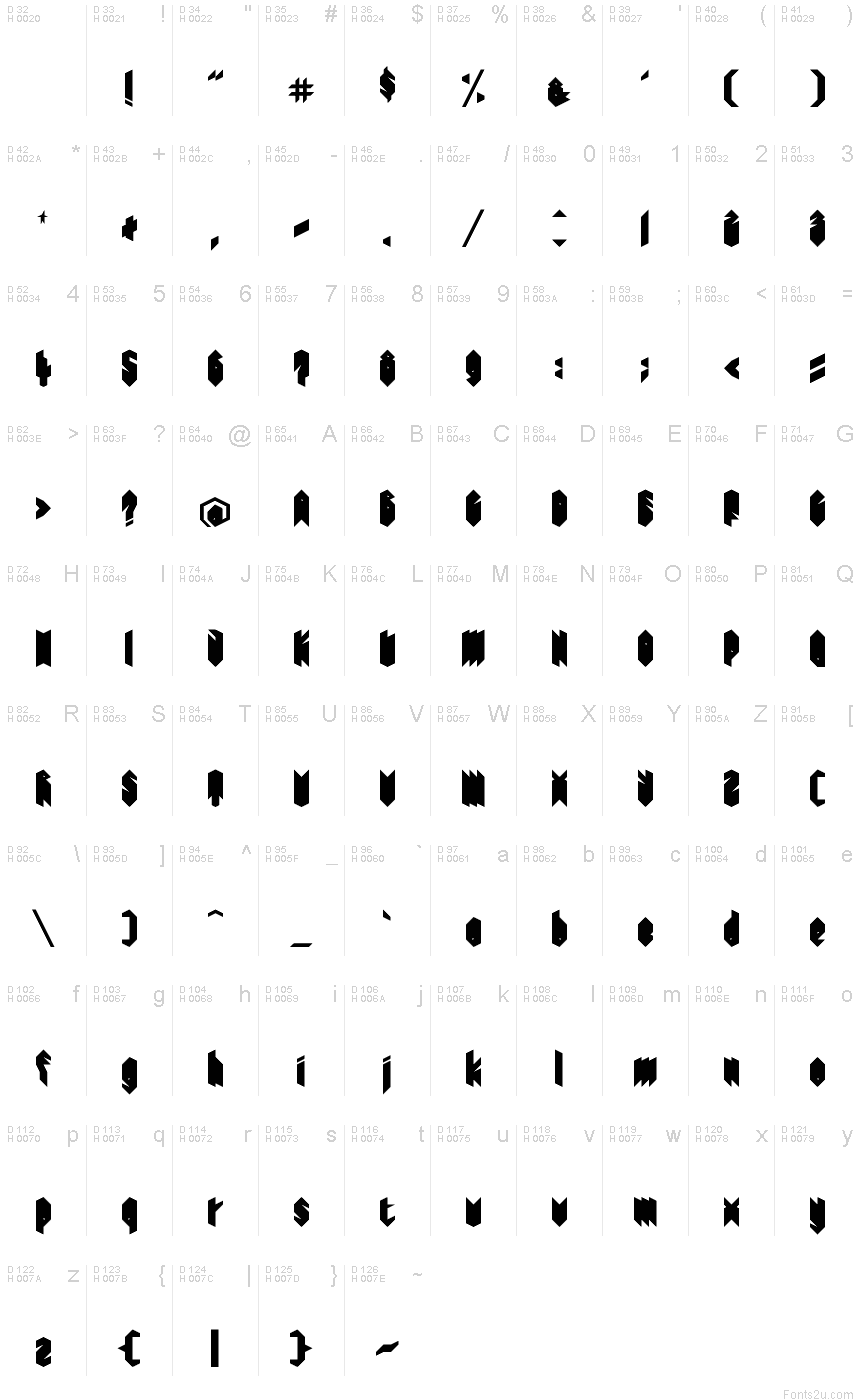
AB CD by Lorenz Fidel Huchthausen of FontStruct is a free futuristic caps display font built from dense, angular forms with an uncompromising industrial look. Its towering block shapes, pointed tops, and hard diagonal cuts create a severe mechanical silhouette, with narrow interior slits resembling breaks in folded metal.
Designers working in electronic music and science-fiction entertainment will find it suited to album artwork, game graphics, and event posters. It can also give streetwear merchandise a hard industrial edge. The repeated peaks and blade-like notches turn the lettering into part of the imagery, echoing armored machinery, abstract architecture, or a jagged skyline.